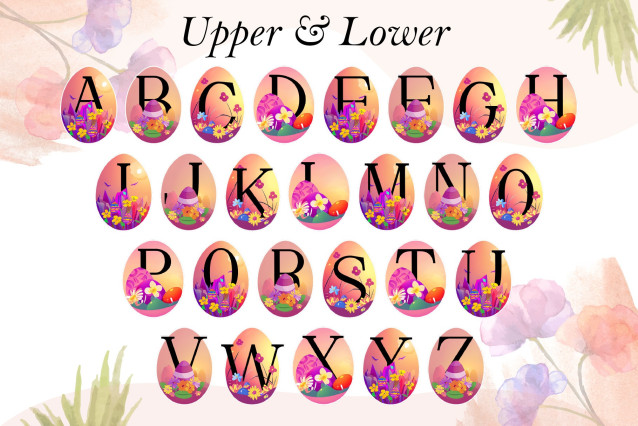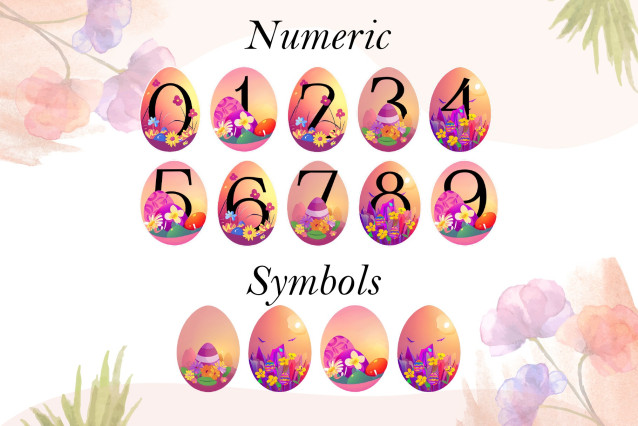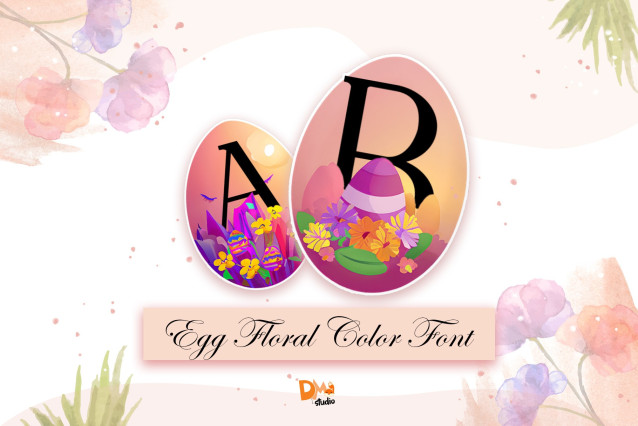
Egg Floral Font
Egg Floral Font is a delightful and elegant Easter-themed monogram design that combines the charm of floral elements with the symbolic shape of an egg. Perfect for spring crafting, Easter gifts, festive decor, and personalized projects, this design brings a whimsical yet graceful feel to your seasonal creations.